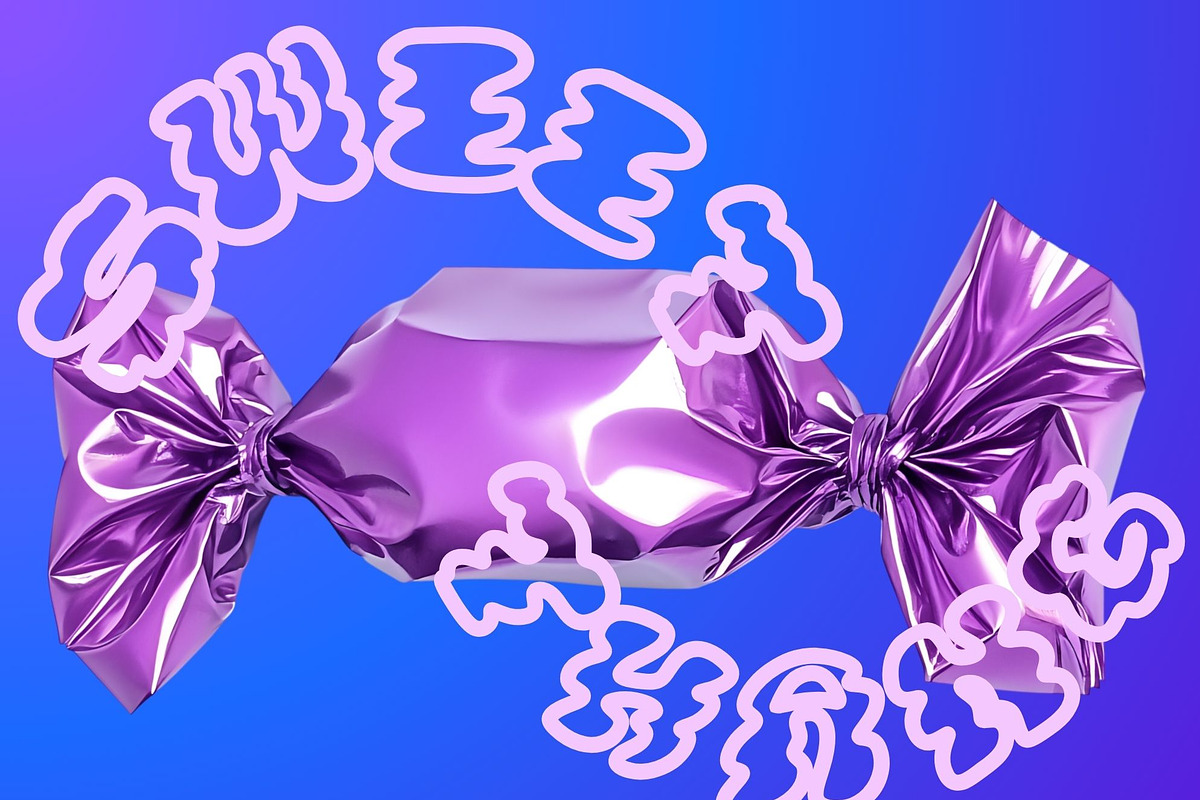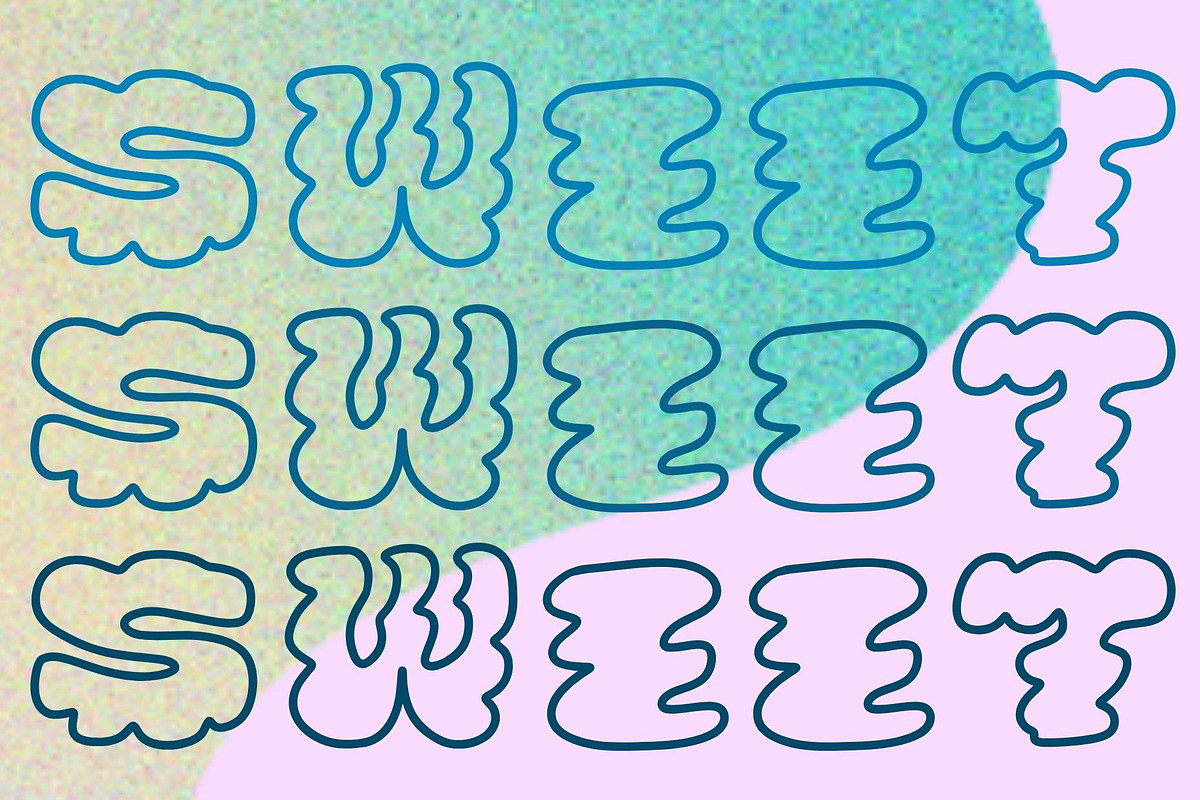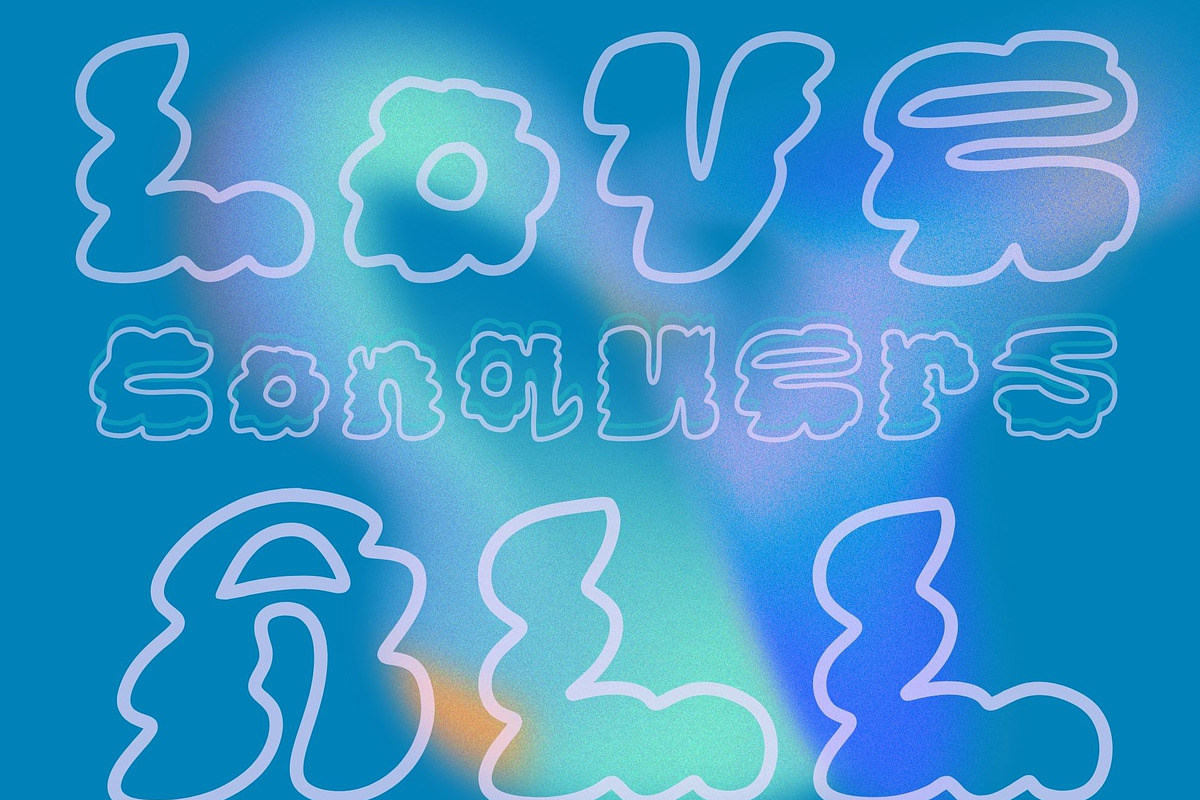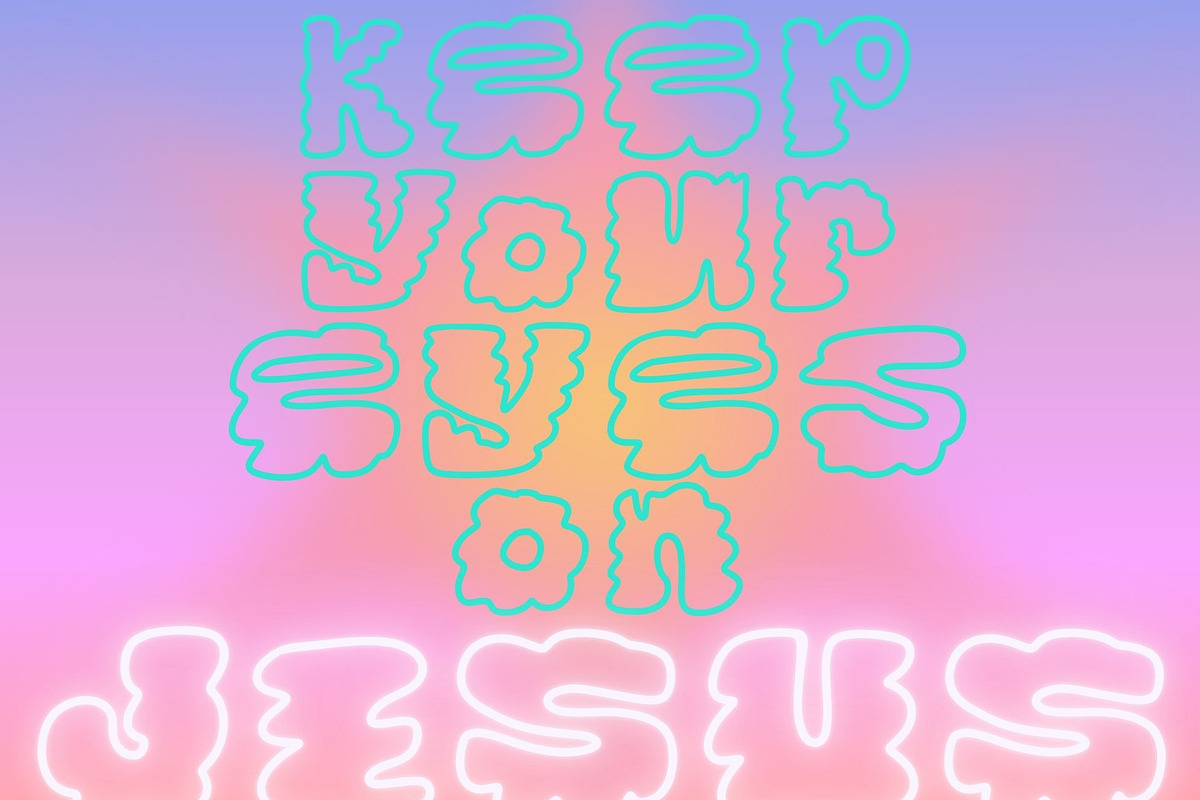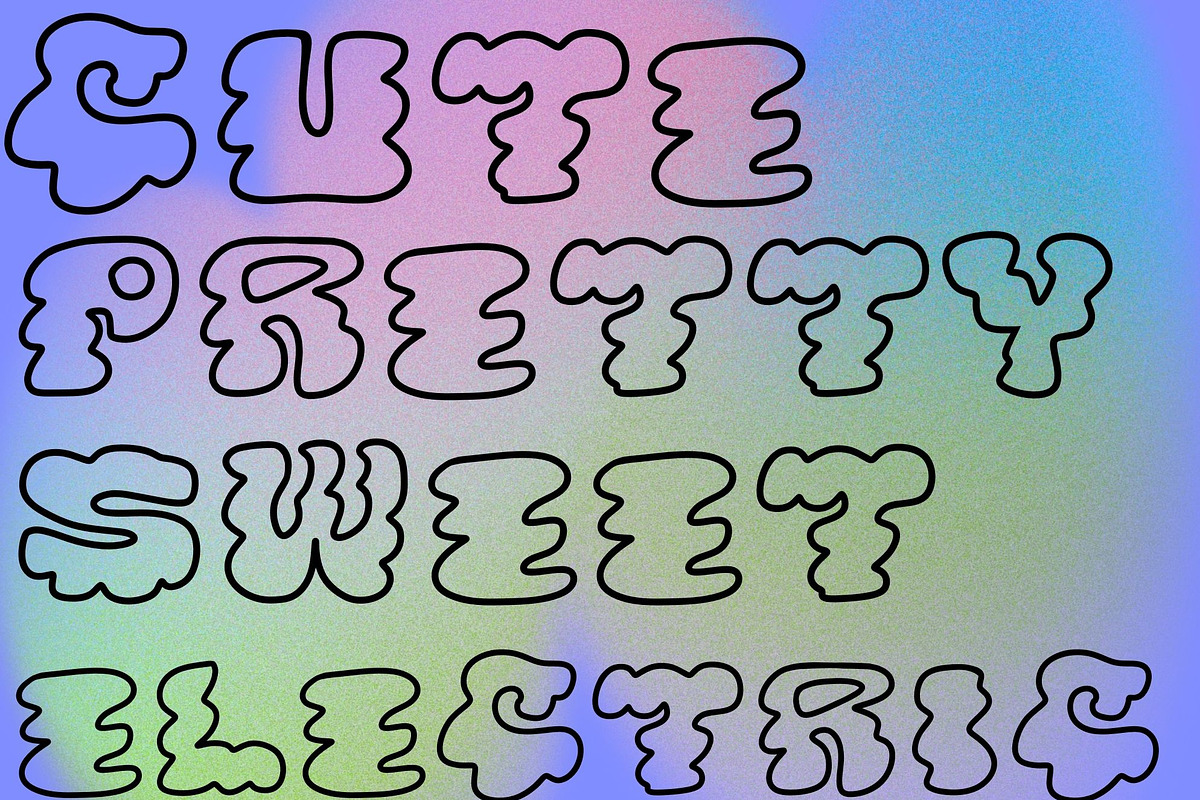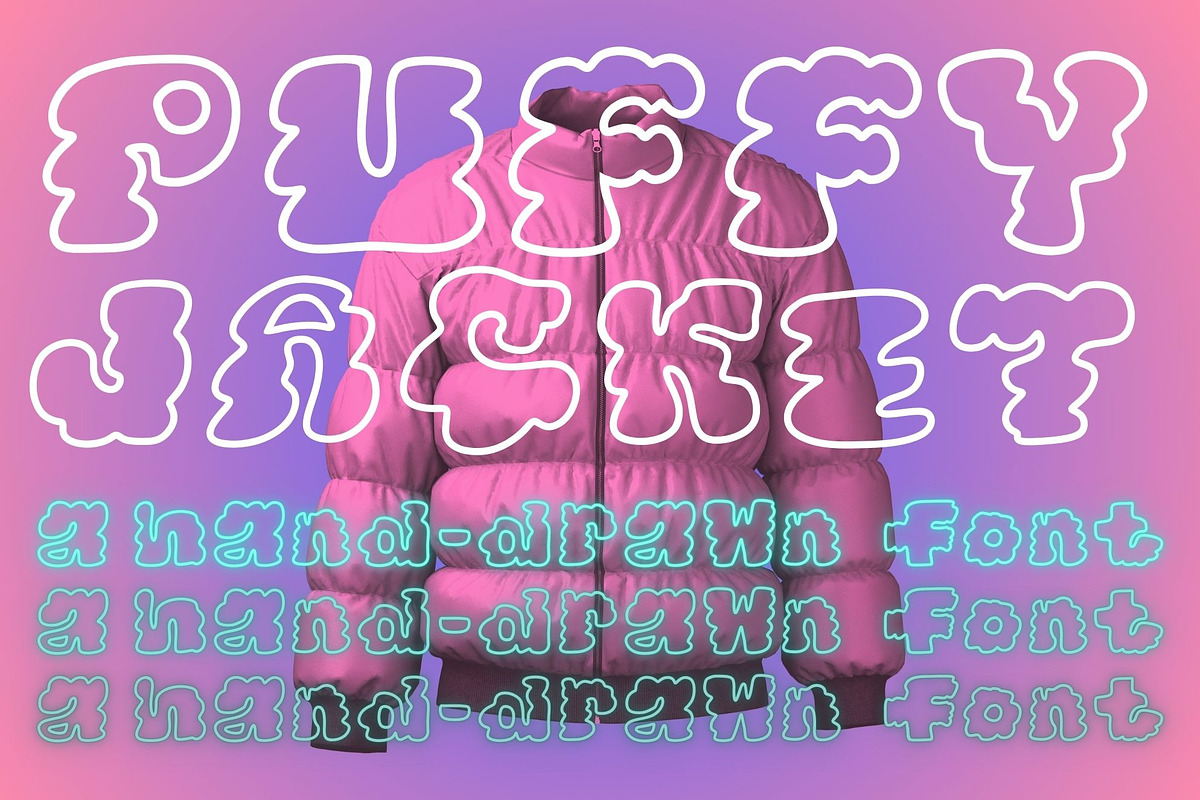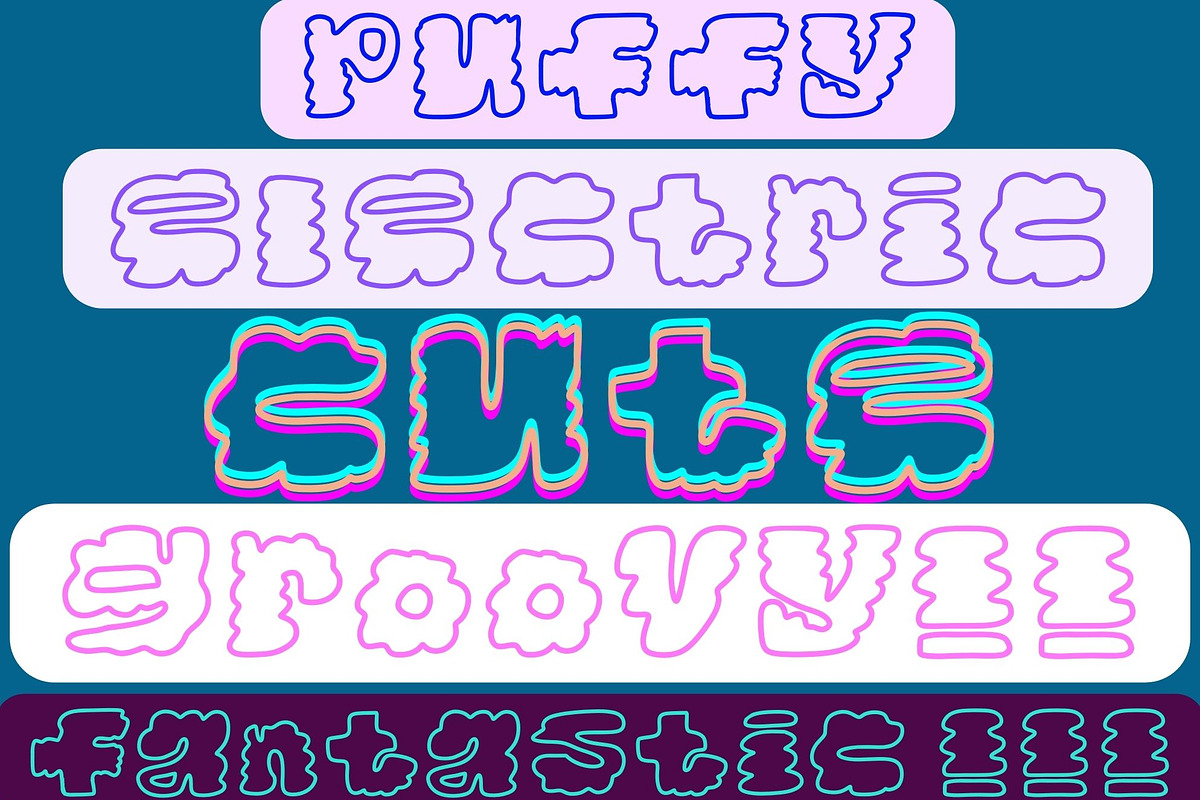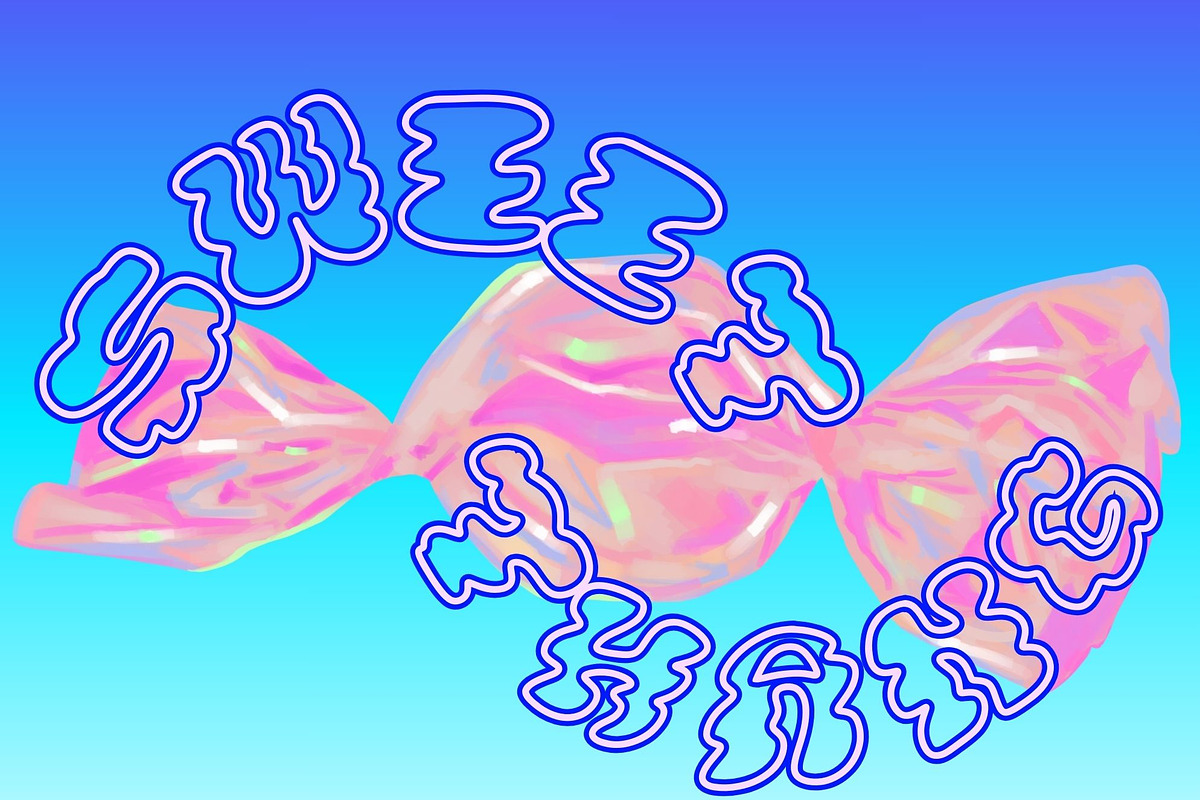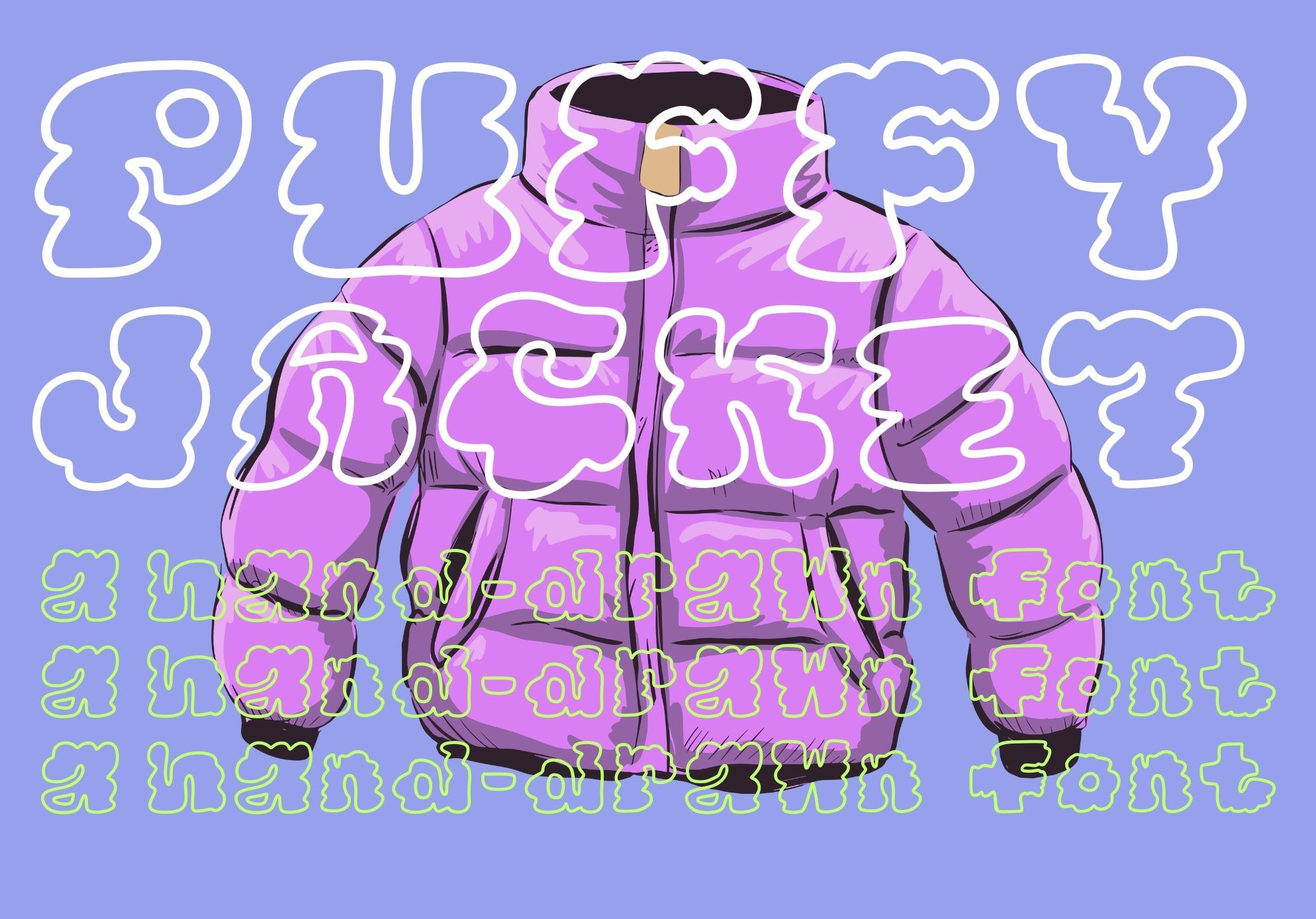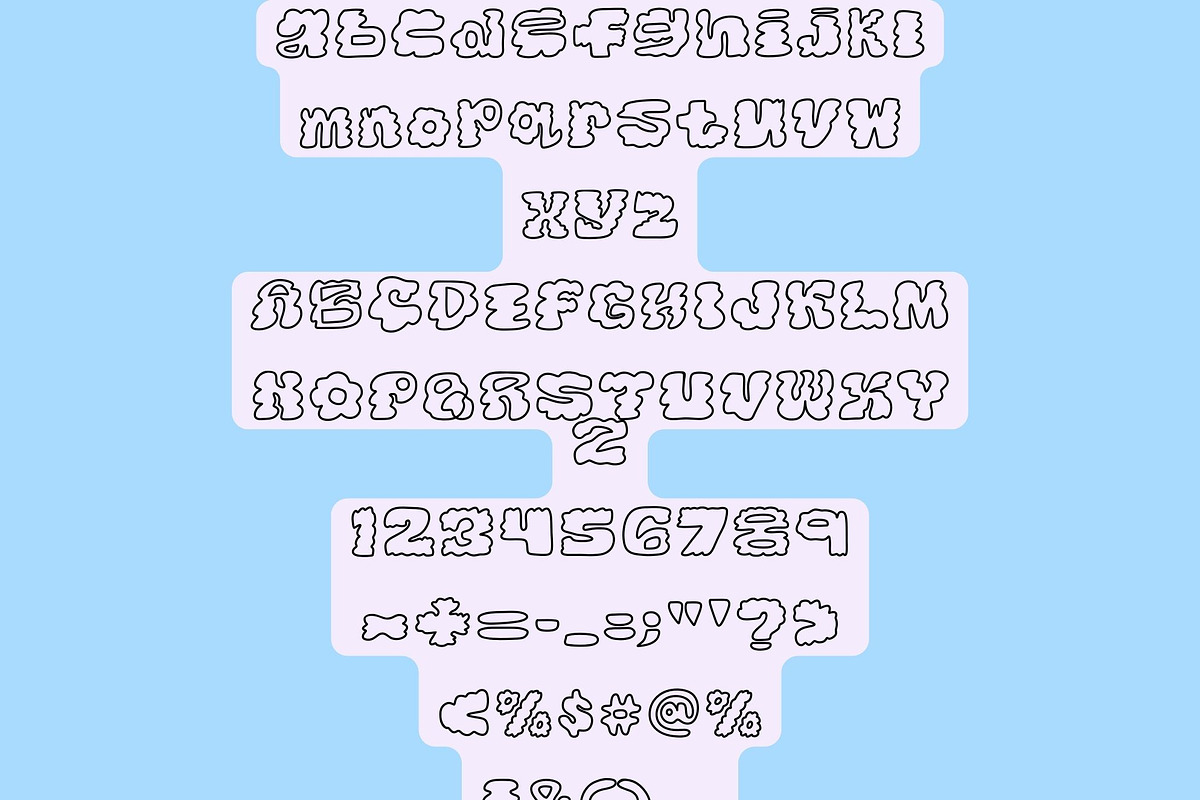
Puffy Jacket a hand-drawn puffy font
Puffy Jacket is a lively hand-drawn eclectic font inspired by your favorite winter puffy jacket. This open-faced font reveals whatever is underneath, making it an excellent choice for those who love layering in their design work. Artistically crafted and unique, it is found nowhere else and is sure to catch the eye. If you appreciate handmade charm and character in your designs, this font is perfect for you. Whether used for children's books, album cover design, event design, label design, or logo design, your work will undoubtedly stand out. Have fun designing and thank you for supporting hand-made fonts.
full alphabet uppercase + lowercase
numbers and standard symbols